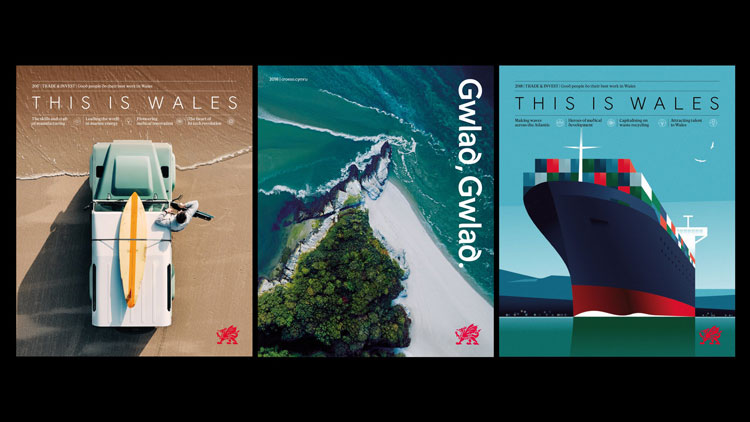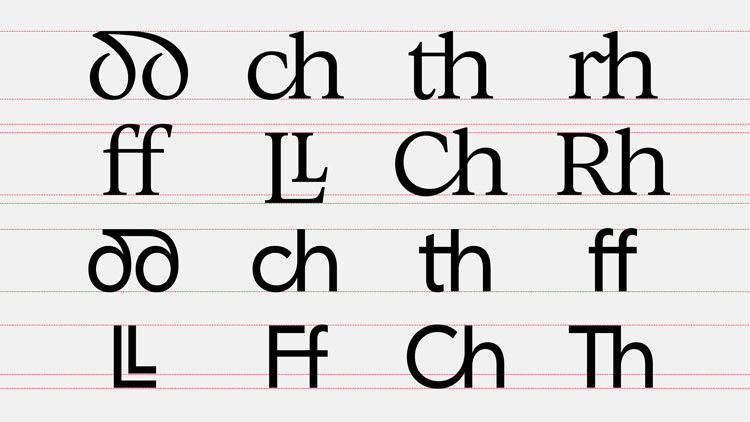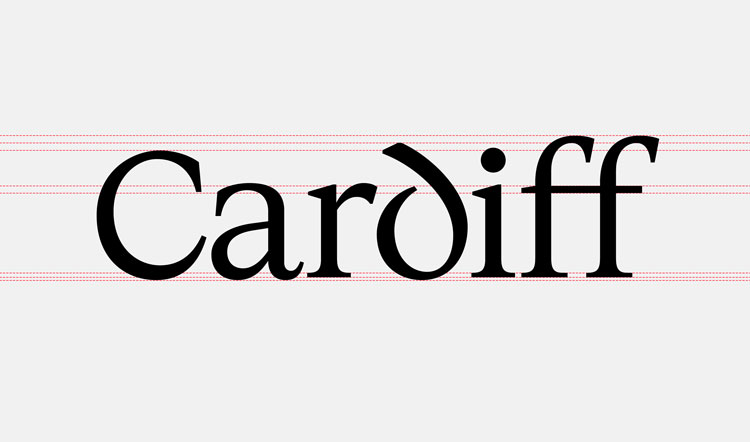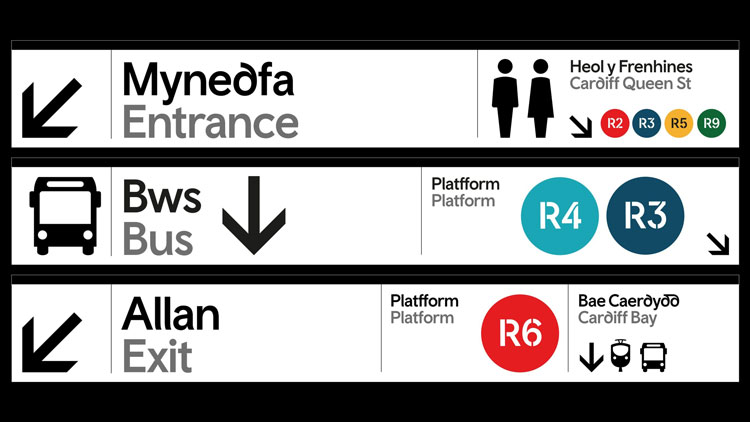
A typeface has been designed for the Welsh language
Three fonts have been created by design studio Smörgåsbord, in collaboration with the Colophon Foundry, which aim to promote the use of the Welsh language.
A typeface has been created for the Welsh language which celebrate the country’s heritage.
The fonts have been designed by the Cardiff office of design studio Smörgåsbord, in collaboration with the Colophon Foundry. Graphic designer Joseph Burrin also consulted.
The three fonts that make up the Cymru Wales typeface are Cymru Wales Sans (originally created in 2017), Cymru Wales Serif and Cymru Sans Transport, which is used for Transport for Wales (TfW).
Welsh is one of the oldest living languages in Europe, but only 29.8% of the country’s population are able to speak it. This is the first time that the Welsh alphabet has been translated into a digital typeface. It is part of a wider ambition for the Welsh Government’s plans to have 1m Welsh speakers by 2050.
The typeface is part of the Wales Nation brand, and has been commissioned by the Welsh government.
Design inspiration
The aim for the project was to create “contemporary European typefaces with a unique personality and a ‘sense of place’ baked in”, according to Smörgåsbord. The studio designed during the country’s identity branding – including the original Cymru Wales Serif typeface – two years ago. That place branding showcased a “painterly” red dragon.
During the research period, the studio looked at “Welsh typographical heritage”, such as the Black Book of Carmarthen (thought to be the earliest surviving manuscript written purely in Welsh) and the Red Book of Gerfest, a 13th century manuscript also written in Welsh.
The studio also looked to other languages such as Icelandic and Arabic for inspiration, owing to their “exuberant and cursive character forms”. Smörgåsbord also looked to the tradition of stone letter carving in Wales. However, the studio was careful not to “wander into the territory of pastiche or parody”.
There were language-specific considerations involved in designing these new typefaces. The Welsh language has eight digraphs, a pairing of two letters that represents one sound. The curved ‘d’ character also became a “cornerstone” of both the Serif and Sans versions.
Cymru Wales Serif and Cymru Wales Transport
Since the introduction of the original typeface two years ago, Smörgåsbord said that it became “obvious” that a wider range was needed. Cymru Wales Serif is designed for “longer, editorial reads”, and can be used in collaboration with the original Sans font.
A third font, Cymru Sans Transport, has been created for TfW. It is all-caps and based on CW Sans, and does not contain any of the digraphs. The letters are stencilled in a “utilitarian manner”, which is also a nod to TfW’s ‘T’ roundel.
Creating a “distinct graphic language”
Different sectors of the Welsh government target different audiences. To meet these needs, the studio assigned different weights and cuts of the fonts for each of the sectors. The Trade & Invest sector uses the Sans typeface in uppercase. Tourism, meanwhile, needed something more “approachable and informal graphic language” and uses Sans Medium in sentence case.
Creative Wales, a new agency within the government that promotes growth in the creative industries, uses a “slithered” version of the Serif typeface.
Greater legibility
According to independent accessibility research, there is a greater degree of legibility for these new fonts. Cymru Wales Sans is more legible than Arial, and Cymru Wales Serif is more legible than Times New Roman.
In the above animation, CW Serif is depicted in red while the Sans version is green.